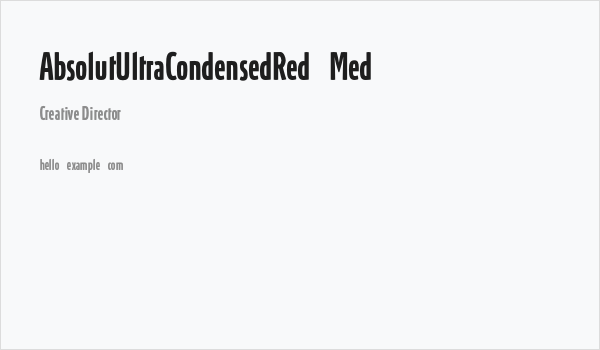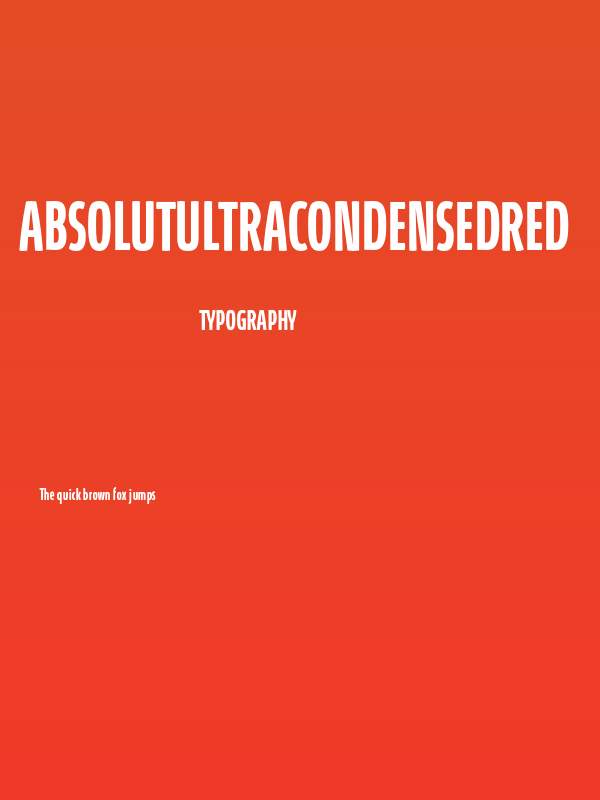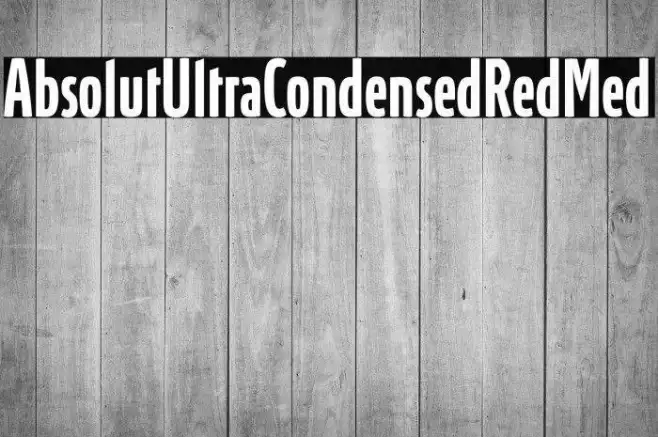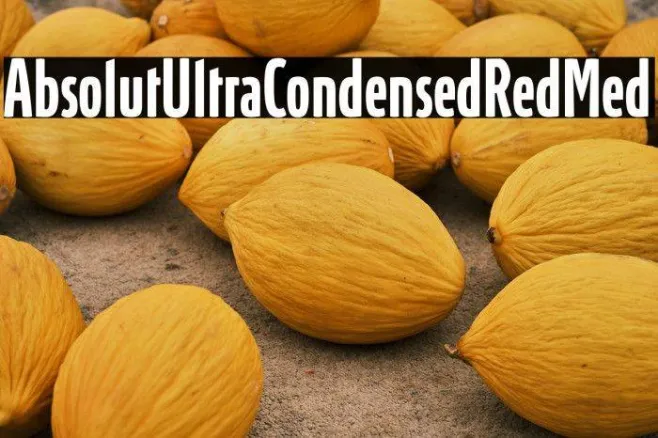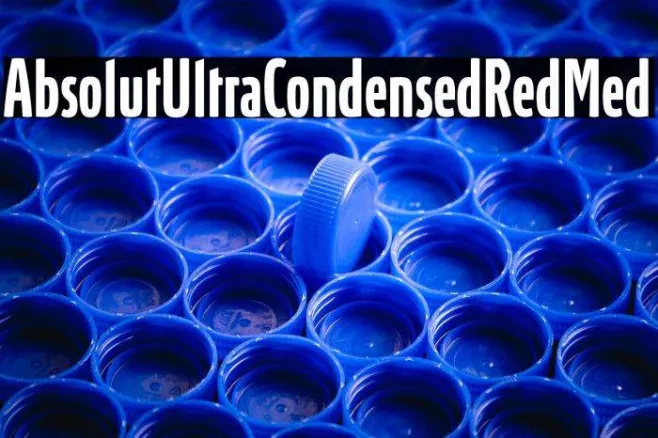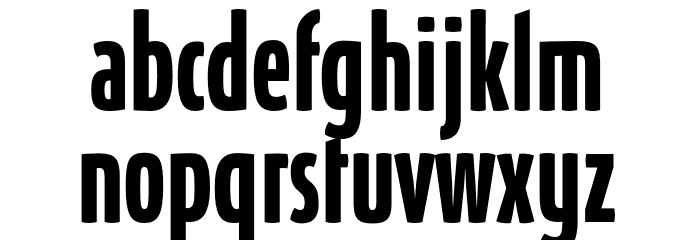
AbsolutUltraCondensedRed-Med Font
AbsolutUltraCondensedRed-Med Description
This font features a bold and ultra-condensed style, characterized by its tall and narrow letterforms. The uppercase letters are particularly striking, with a strong vertical emphasis and minimal spacing between characters, creating a compact and impactful appearance. The lowercase letters maintain the condensed style, offering a consistent look across different text cases. The font's design is modern and clean, making it suitable for attention-grabbing headlines and titles. Its high contrast between thick and thin strokes adds to its boldness, while the overall geometric shapes provide a contemporary feel.
| Proposed Projects | Ideal for headlines, posters, branding, and any design project requiring a strong visual impact. |